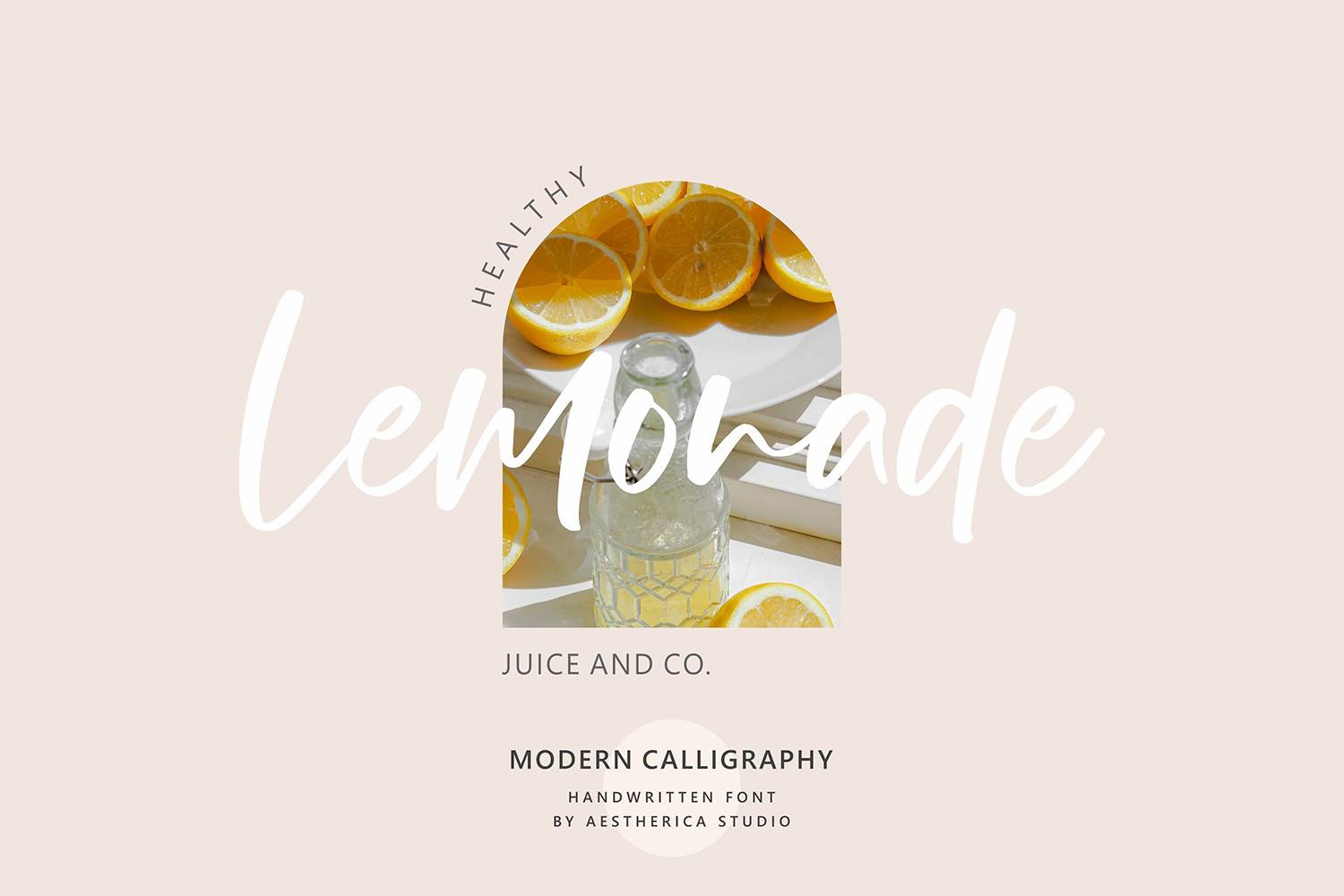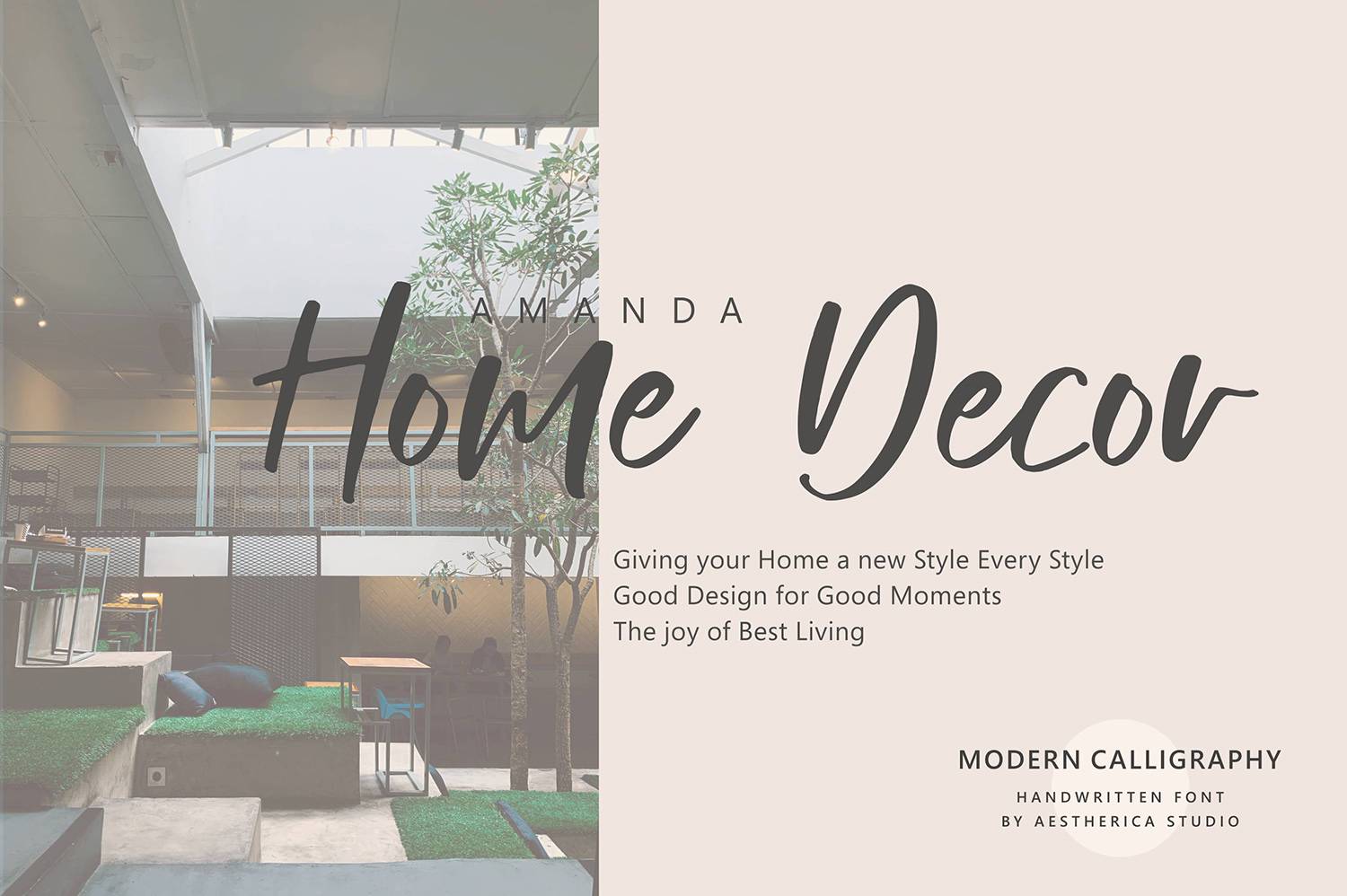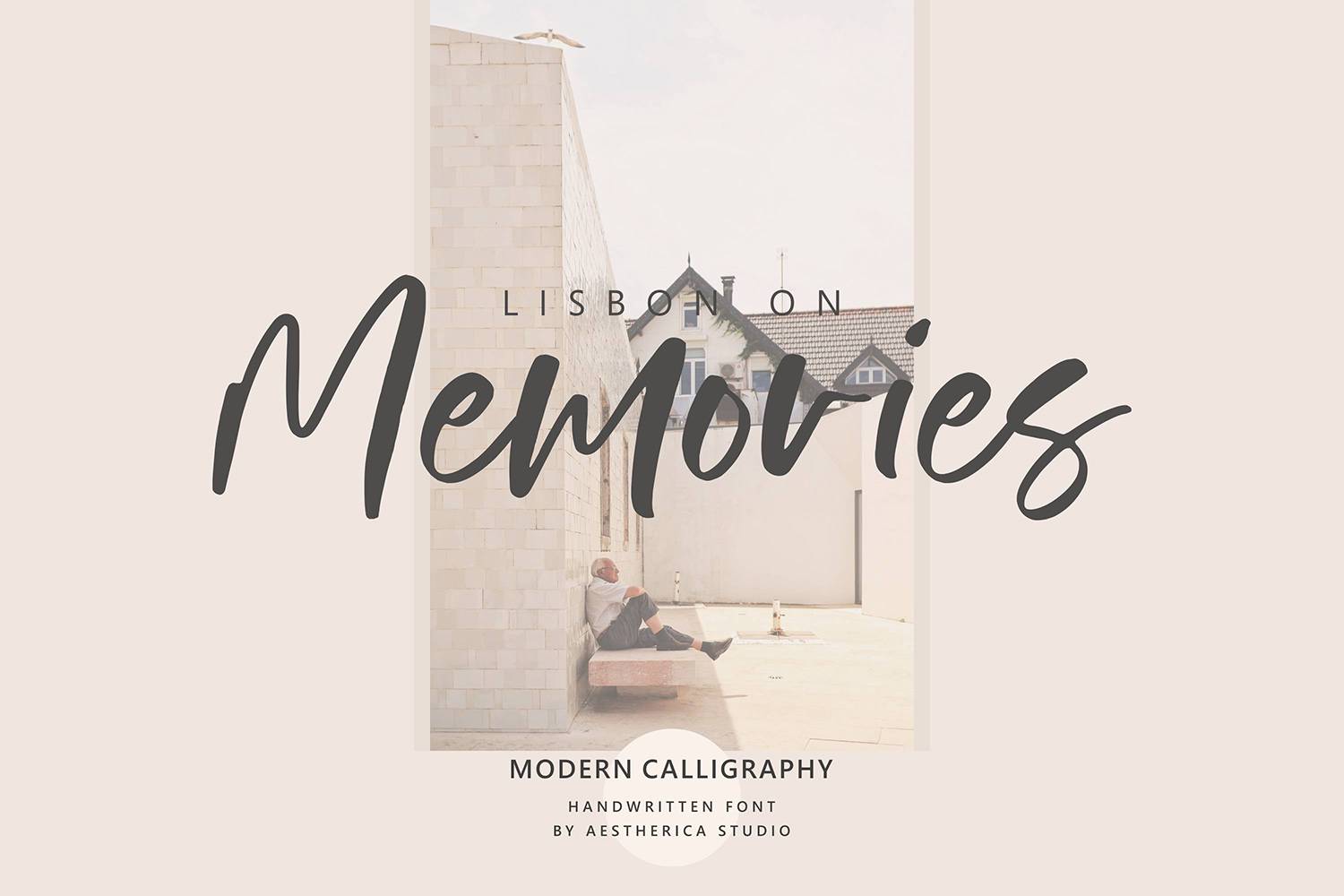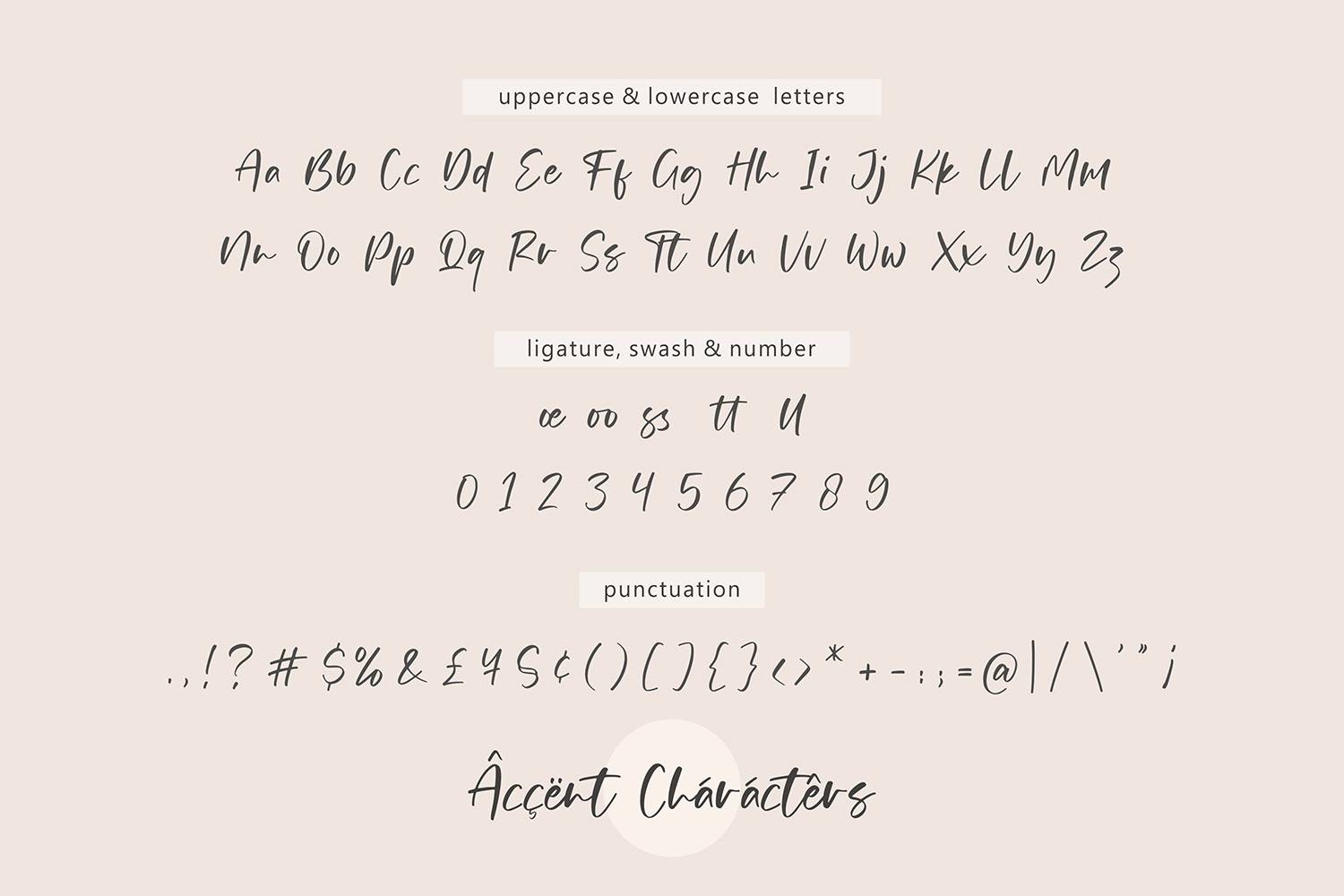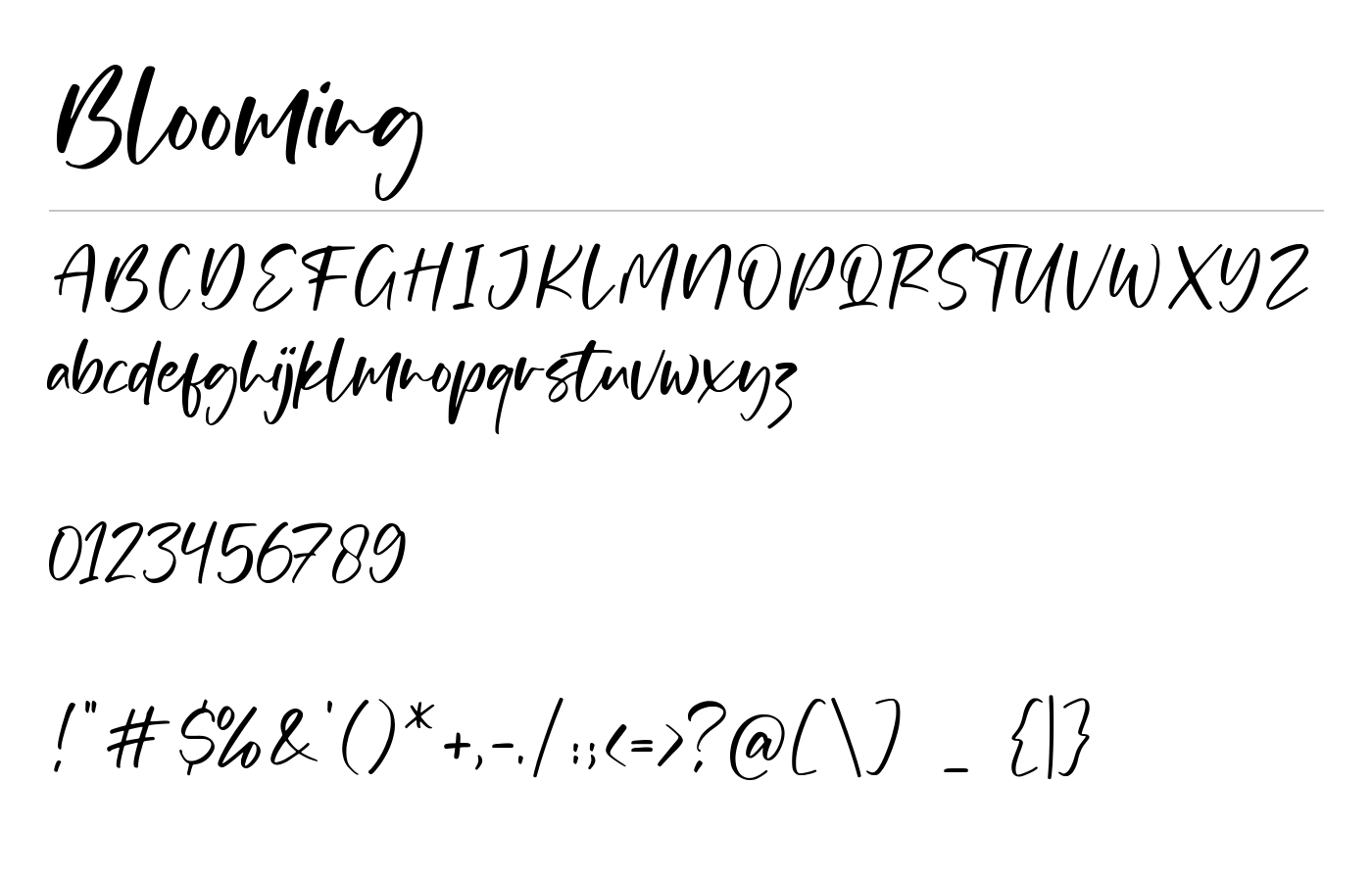
Blooming is a lively, handwritten script font featuring smooth, flowing strokes with medium contrast and an airy, casual feel. Its tall x-height and unique letter shapes give it an approachable yet elegant personality, making it ideal for creative branding, invitations, and stylish headlines where a personal touch is desired. This font shines in projects that seek a warm and inviting appearance without sacrificing readability.
Blooming Font
About Blooming Font